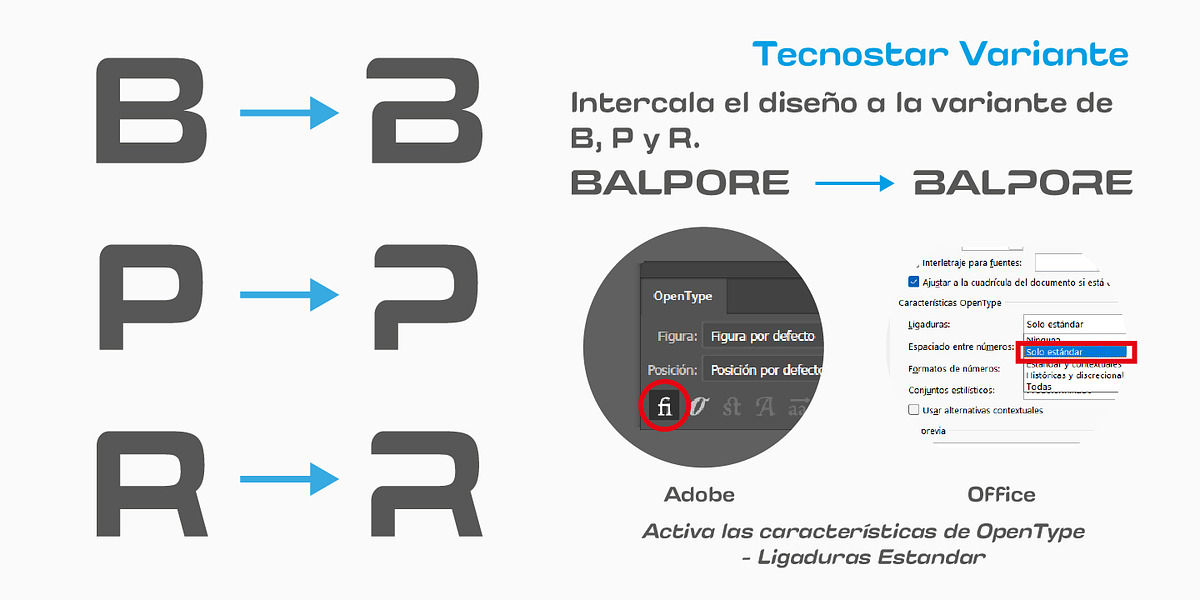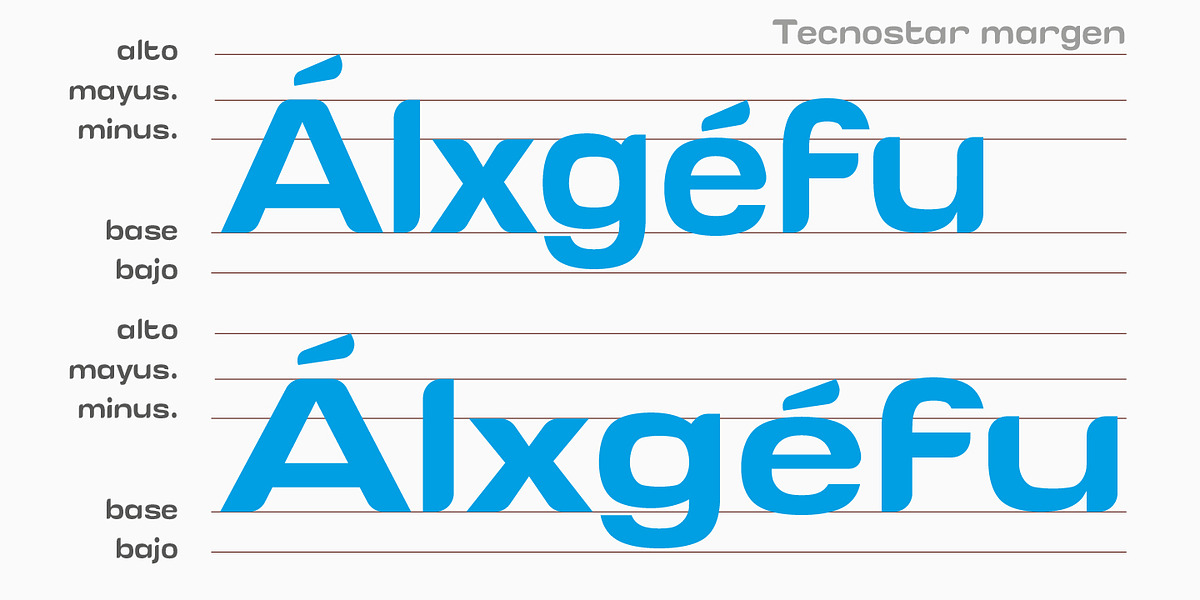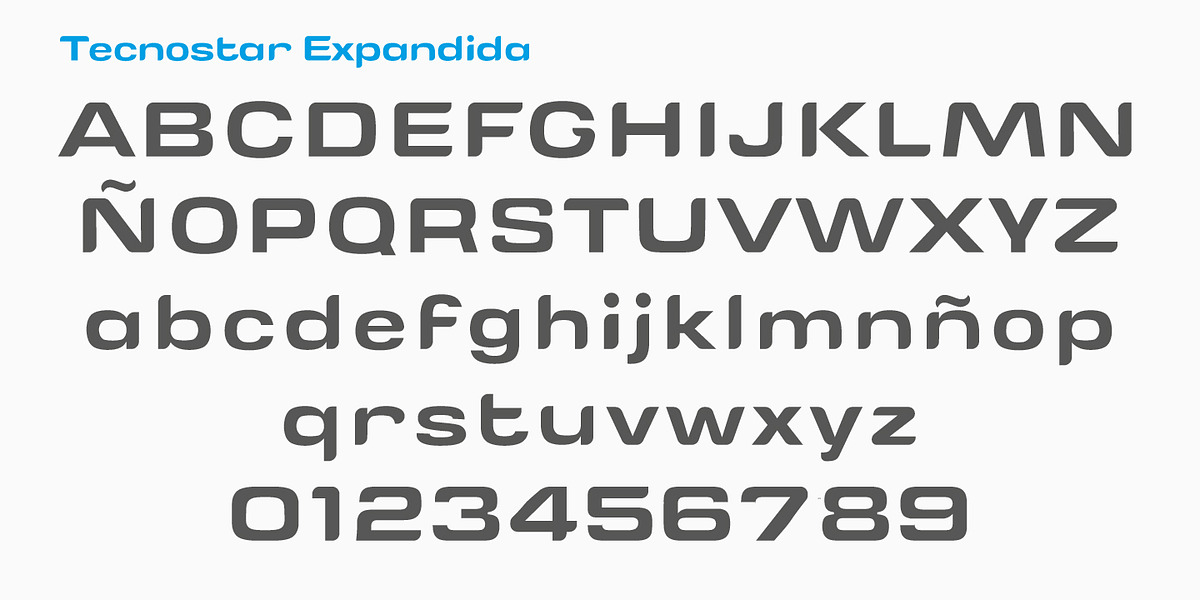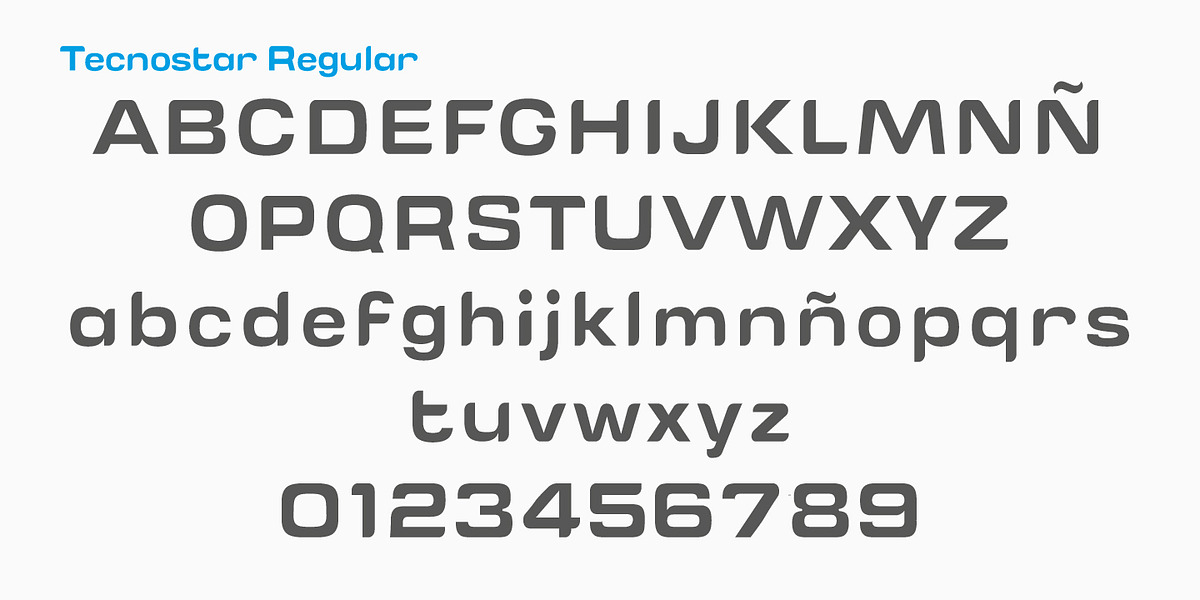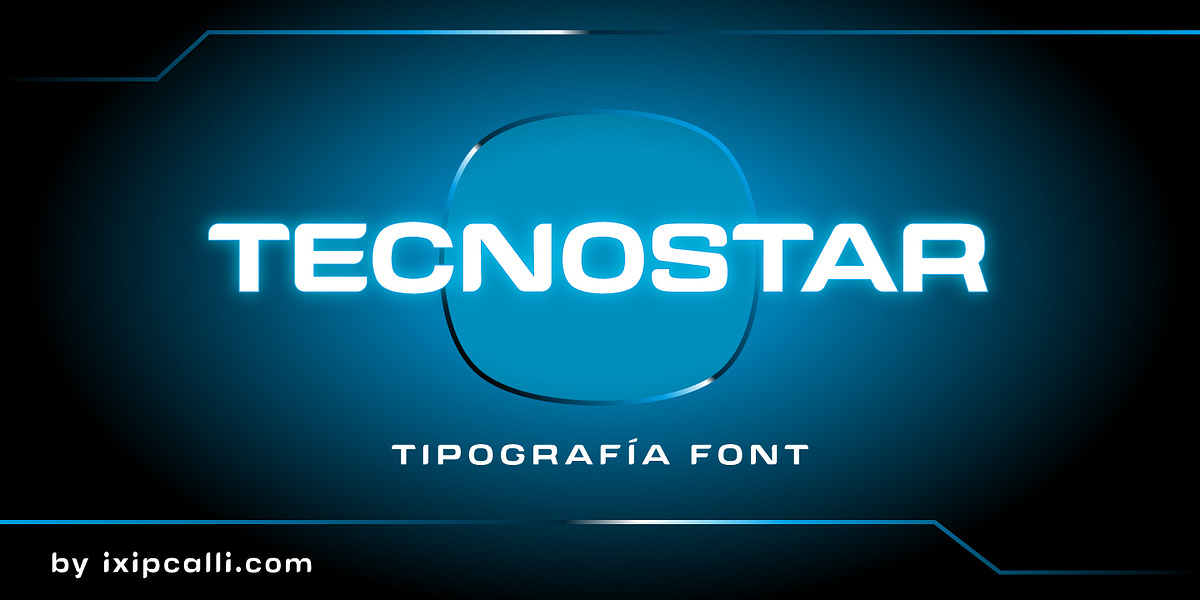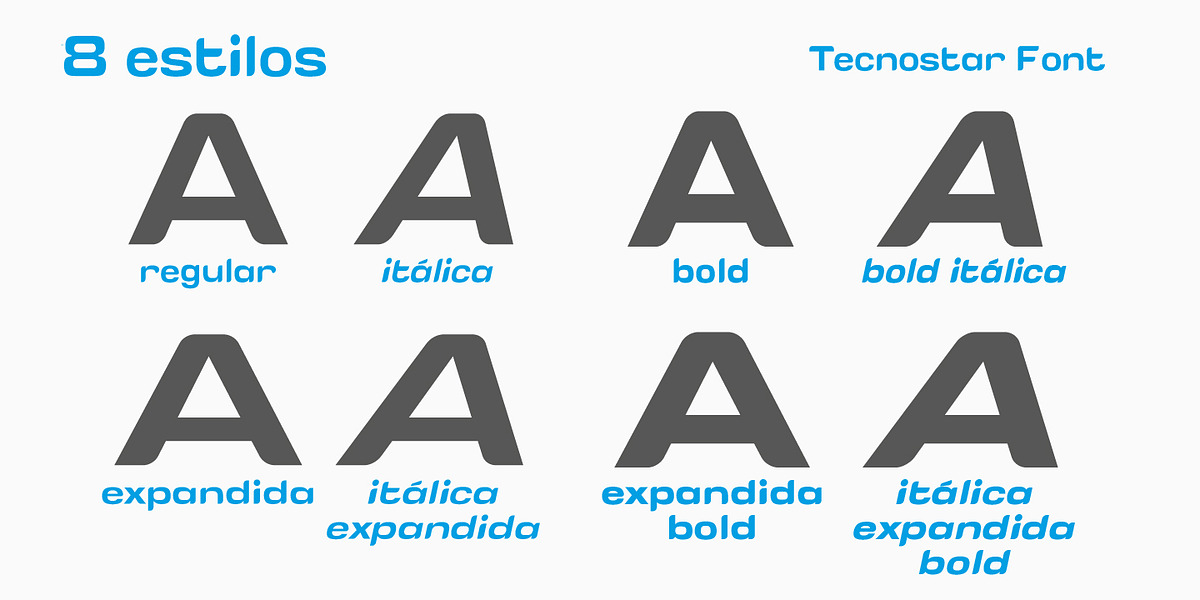
Tecnostar
Tecnostar is designed to stand out in headlines, logos, and high-impact visuals, particularly in projects related to gaming, technology, electronics, or modern branding. Its visual identity combines technical precision with an experimental flair, creating a sense of movement and progress toward the future.
Its design is ideal for tech branding projects, posters, covers, and digital interfaces seeking a cutting-edge identity. Its futuristic, geometric style and segmented cuts evoke digital interfaces and sci-fi aesthetics. It features two weights (regular and extended), as well as italic and bold variants for each weight.
This typeface was designed in 2026 for a project involving intelligent robots, which is why it features three modified letters B, P, and R that can be used to evoke the brand name.